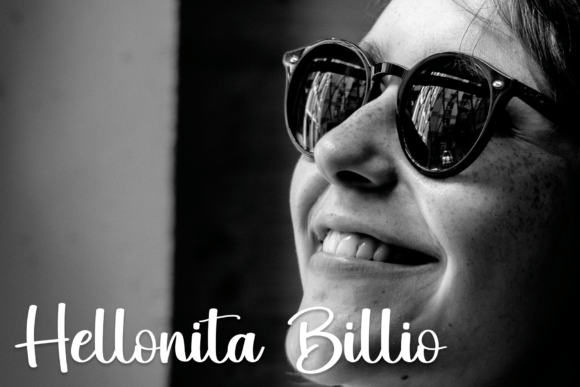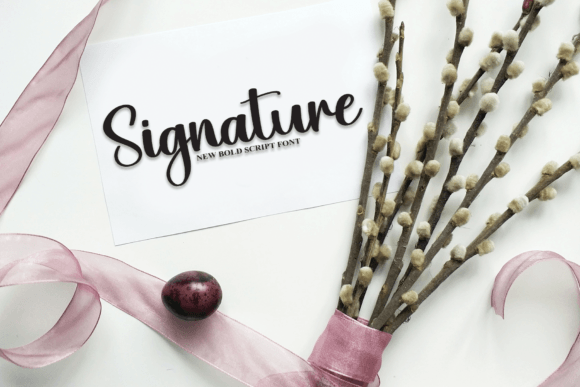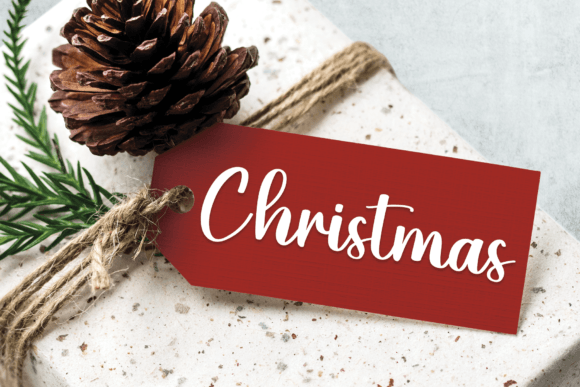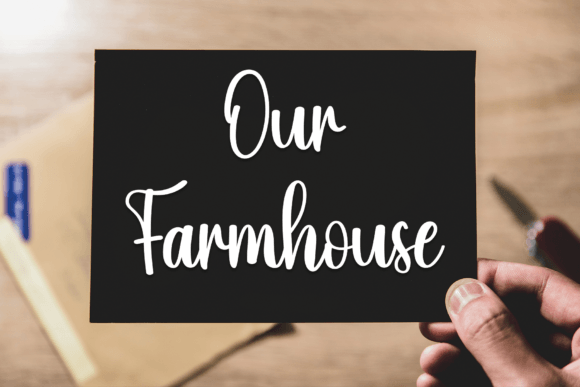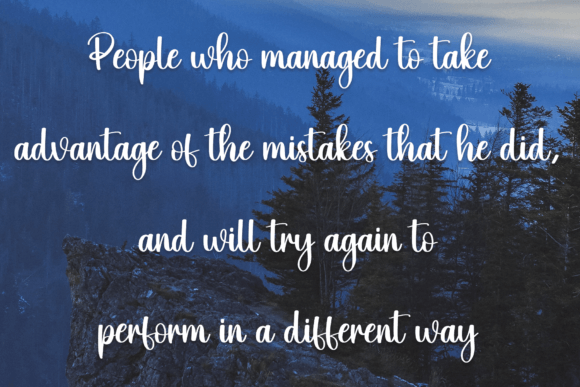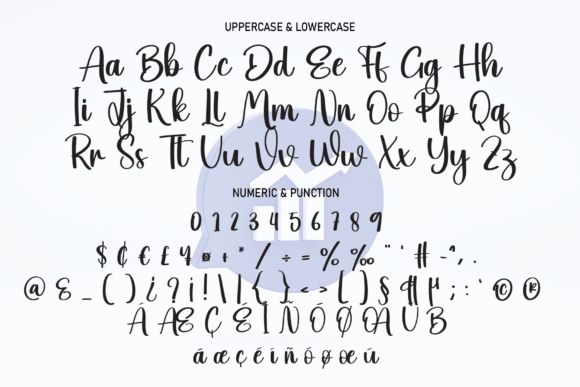
The Perfect Blend of Handwritten Charm and Typographic Precision
Have you ever been scrolling through social media and stumbled upon a beautiful, handwritten logo or invitation that stopped you in your tracks? Maybe it was the elegant script or the playful cursive that caught your eye. Whatever it was, it likely left a lasting impression and sparked a desire to create something similar.
For designers looking to infuse their projects with a touch of handwritten charm, the Analytic Font is a game-changer. This versatile typeface is perfect for wall displays, wedding invitations, social media post logos, and any other project that requires a handwritten feel. With its unique blend of precision and personality, the Analytic Font is a valuable asset for designers seeking to add a personal touch to their work.
Whether you’re a seasoned pro or just starting out, the Analytic Font is a must-have in your design toolkit. Its endless possibilities and adaptability make it a versatile choice for a wide range of applications, from product packaging to photography and beyond.
Key Features of Analytic Font
- Unique Character Set: Analytic Font features a comprehensive character set, including over 1000 glyphs, covering multiple languages and scripts, including Latin, Cyrillic, and Greek alphabets.
- Advanced Typography: The font includes advanced typographic features, such as ligatures, fractions, and ordinals, allowing for precise control over text layout and design.
- Customizable: Analytic Font offers a range of customization options, including font weights, styles, and sizes, making it easy to adapt to different design requirements.
- High-Quality Glyphs: The font features high-quality, carefully designed glyphs, ensuring clear and legible text display, even at small font sizes.
Designer Review: Analytic Font
First impressions are everything, and Analytic Font makes a solid start. The font’s clean lines and modern aesthetic ✨ immediately grab your attention. It’s clear that the designers have put thought into creating a versatile font that can be used for a wide range of applications.
The Analytic Font is well-suited for digital displays and publications, making it a great choice for magazines, newspapers, and websites. The font’s clear typography and well-defined letterforms ✨ make it easy to read, even at smaller sizes. The font also supports multiple weights and styles, giving you a range of options to choose from.
However, there are some limitations to consider. ⚠️ The font may not be as effective for body text, as it can be a bit too condensed and dense. Additionally, some users may find the font’s modern aesthetic a bit too edgy or trendy. It’s worth noting that the font’s support for certain languages may be limited.
Key Features:
- Modern, clean aesthetic
- Clear typography and well-defined letterforms
- Support for multiple weights and styles
- Well-suited for digital displays and publications
Overall, Analytic Font is a solid choice for designers looking for a modern, versatile font. While it may have some limitations, it’s well-suited for a wide range of applications and is sure to impress.
For optimal use, use Analytic Font for headings and titles, and a sans-serif font for body text.
Tips for Getting the Most Out of Analytic Font
Use Analytic Font for data visualization, charts, and graphs to create a cohesive and professional look.